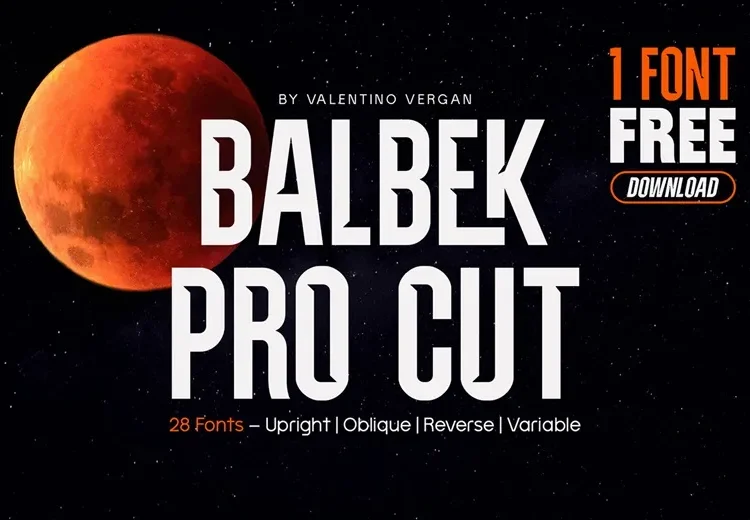
Balbek Pro Cut Font
Balbek Pro Cut is a modern sans serif font characterized by its neutral aesthetic and natural condensed letterforms. This enhanced version of the original Balbek Cut font offers improved design, readability, and an expanded character set, making it a versatile choice for various design applications.
Designed to function well as a display font, Balbek Pro Cut excels in print materials, posters, graphics, and logo designs. Its clean lines and contemporary feel ensure that it captures attention while maintaining clarity, making it suitable for both bold headlines and subtle branding.
This font is perfect for designers looking to create striking visuals that convey professionalism and modernity. Whether you’re crafting promotional materials, editorial layouts, or any creative projects, Balbek Pro Cut will add a refined touch to your work.